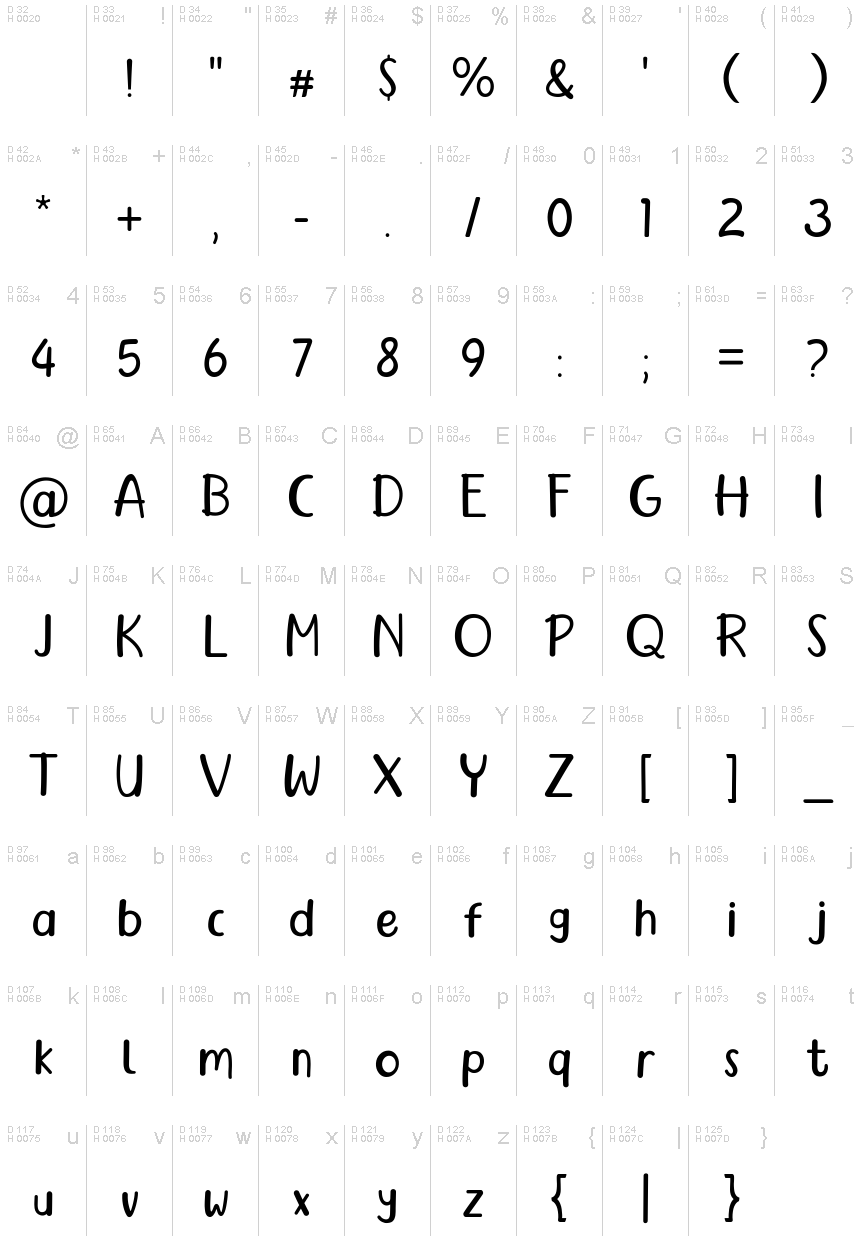
Child Babita
Child Babita, a captivating display font crafted by UI Creative, exudes a delightful, playful charm. Its whimsical letterforms evoke a sense of playfulness and lightheartedness, making it an ideal choice for a variety of creative projects. The font's distinctive, cartoon-inspired aesthetic sets it apart, adding a touch of fun and vibrancy to any design.
This versatile font lends itself well to a range of applications, from children's book illustrations and packaging design to branding and advertising campaigns. Its unique character and vibrant personality make it a compelling choice for projects that aim to convey a sense of youthfulness, creativity, and approachability.